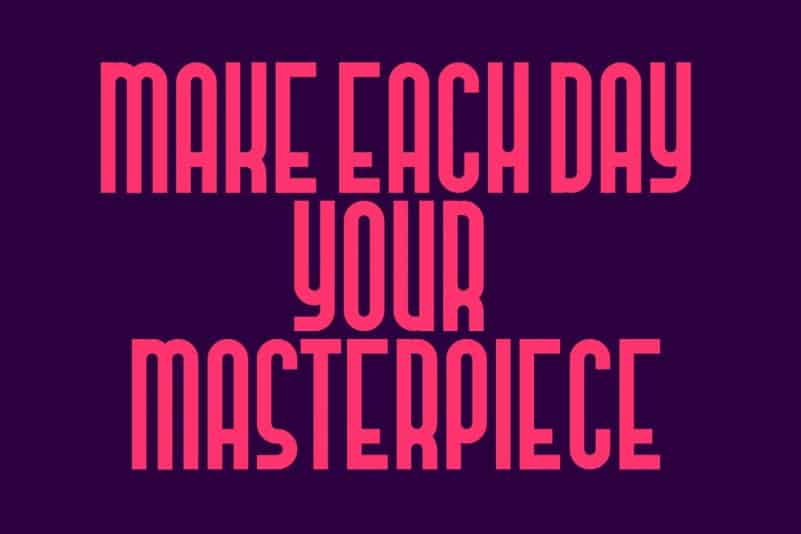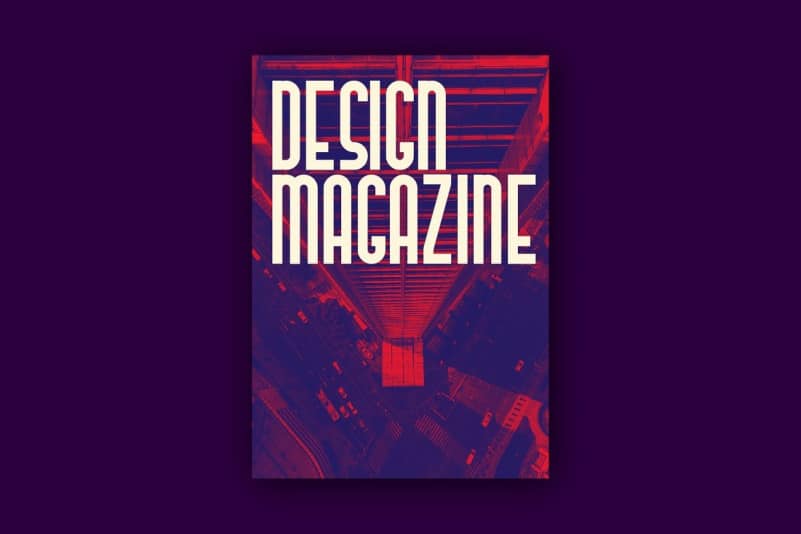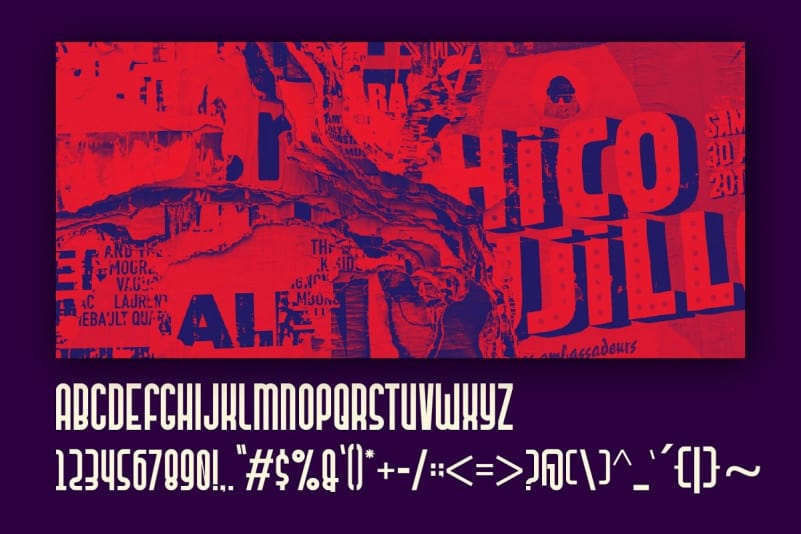
Mandan Typeface
Mandan Typeface is sans serif font with modern style. Includes uppercase letters, numerals, a large range of punctuation. Created for poster, web design, branding, illustrations, badges and some other works. Mandan Font is our newest collection of fonts, it is very suitable to meet your design needs. Suitable for any design needs: branding, logos, quotes, product packaging, merchandise, blog design, modern advertising design, invitation, Art Quote, Home decor, Book / Cover Title, Invitation, special events, birthday, custom mug, pillow, any brush lettering needs and more.